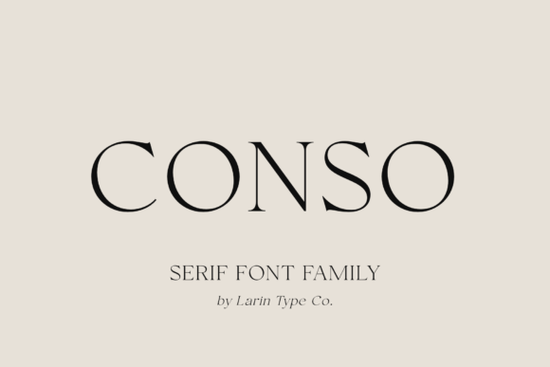
If you are looking for a serif font that combines elegance with readability, Conso Font might be exactly what you need. This sequel to the popular CONSO sans serif family brings a contrasting, modern style that works well for branding, packaging, and editorial design. Whether you're a print-on-demand seller, a graphic designer, or a creative hobbyist, this versatile font gives you a polished look without sacrificing legibility.
What makes Conso Font different from its predecessor?
The original CONSO sans was a clean, geometric workhorse. The new serif version, CONSO SERIF, keeps that same dependable feel but adds contrast and a classic serif structure. You get both upright and italic styles in seven weights, from thin to bold. That means you can use the same font family for headlines, body text, and everything in between.
A standout detail is the set of stylistic alternates. These replace some uppercase and lowercase letters with teardrop-shaped tails, giving your text a more refined, calligraphic feel. If you want to add personality to your project, those alternates are a quick way to do it.
How can you use Conso Font in your projects?
This is a true multi-purpose serif. Here are a few ways you can put it to work:
- Logos and branding – The contrast makes it stand out at larger sizes.
- Packaging and labels – It stays readable even when printed small.
- Book covers and magazines – The seven weights let you create clear hierarchy.
- Social media graphics and ads – The italic style adds motion to quotes or taglines.
What OpenType features does Conso Font include?
The font comes with standard OpenType features – things like ligatures and alternate glyphs – that make your text look more professional. The stylistic alternates with the teardrop tail are the main highlight. They are easy to enable in apps like Adobe Illustrator, Canva, or Affinity Designer. All characters have PUA encoding, so even programs with limited OpenType support can still display the alternates.
Tips for getting the most out of Conso Font
To make your designs look cohesive, keep these pointers in mind:
- Pair with a clean sans serif. Conso Font works well alongside the original CONSO sans or a simple geometric sans like Montserrat.
- Use the alternates sparingly. The teardrop tail adds flair – use it on one or two key letters (like capitals) rather than the whole word.
- Test weights before committing. Print samples of thin, regular, and bold to see which reads best at your intended size.
- Don't forget kerning. With a contrasting serif, adjusting letter spacing can improve readability in headlines.